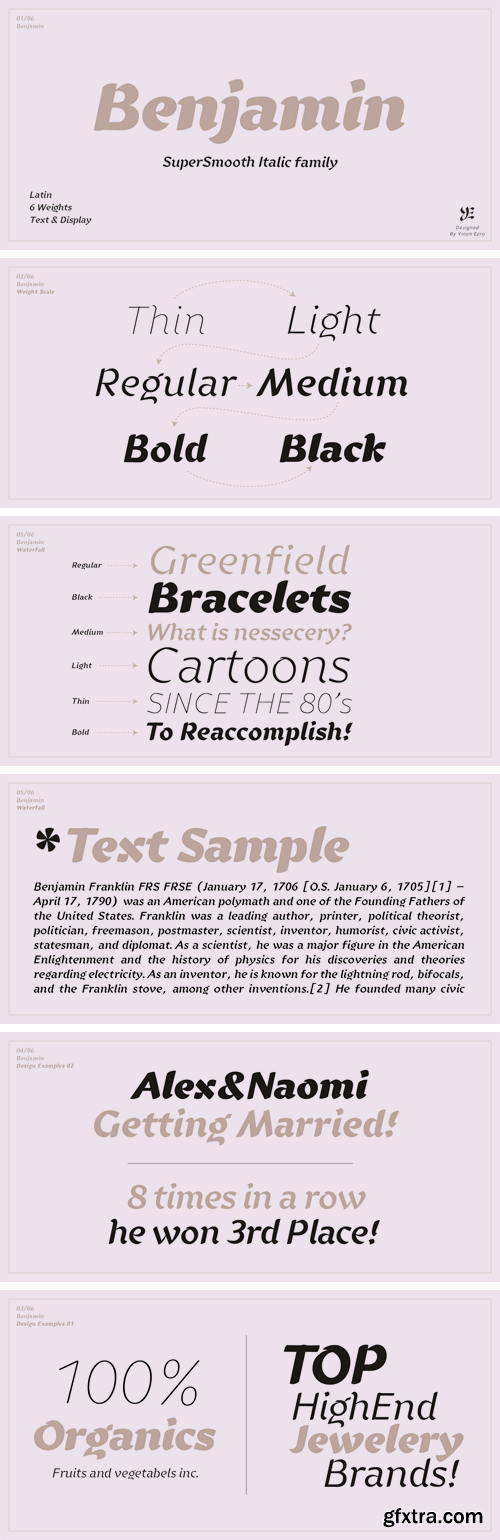
Ye Benjamin is a smooth italic typeface, that will spread style and good vibes everywhere you put him. The crystallization of the letters shape was through seeking an iconic look, that would be a useful branding tool.